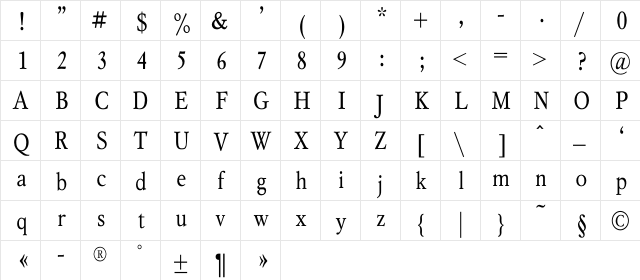
MyslNarrowC Regular
Design Context for MyslNarrowC Typeface
MyslNarrowC takes a measured approach to typography — its balanced proportions and neutral character make it a reliable workhorse for both digital and print work. The condensed width makes it efficient for tight spaces without sacrificing legibility.